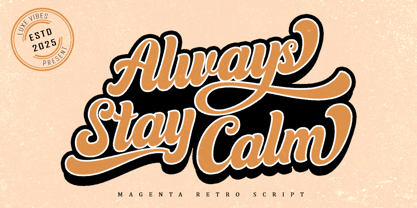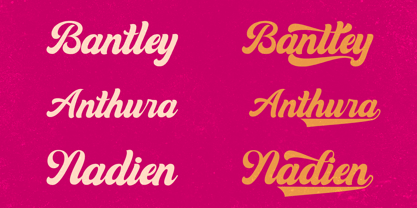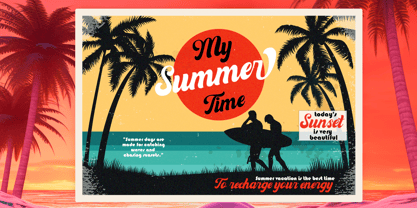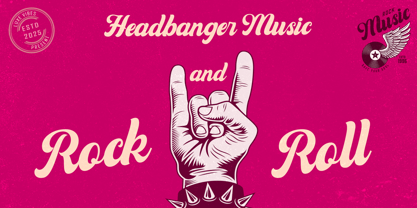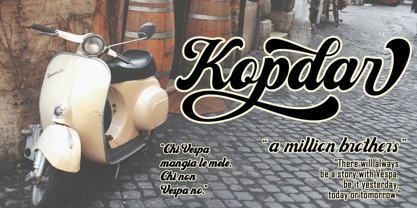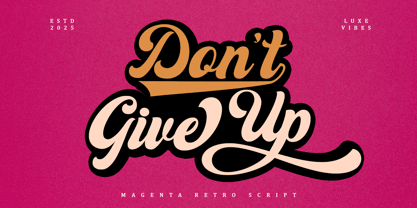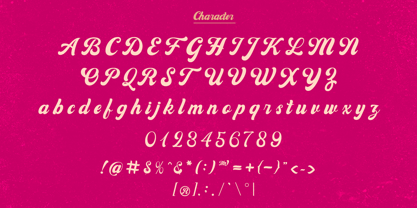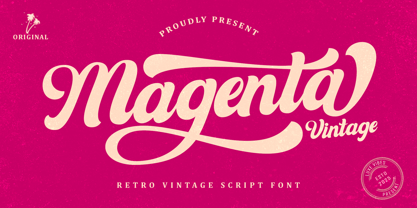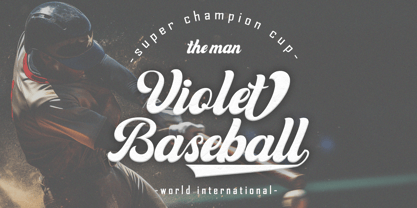
Magenta Vintage
by Luxe Vibes
The Magenta Vintage Font Family was designed by and published by Luxe Vibes. Magenta Vintage contains 1 styles. More about this family
Magenta Vintage is a semi-retro script font that combines an elegant classic style with a dynamic modern touch. Inspired by the retro feel of the mid-20th century, Magenta Vintage appears with a unique character: not too old-fashioned, but still carrying a soft and subtle nostalgic charm. The design offers a balance between traditional handwriting curves and a contemporary touch, making it suitable for use in various visual needs today. Magenta Vintage has smooth and flowing letterforms, with neat connections between letters. Not too decorative like pure retro script fonts, but still maintains the characteristic curves and strokes of the old era. This makes it a perfect choice for designers who want a classic look without losing the modern, clean, and versatile impression.